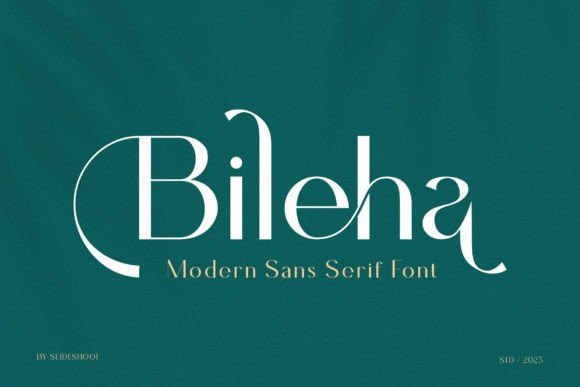
Introducing Bileha Font, the Ultimate Sans Serif for Stunning Designs:
Dive into the world of typography with Bileha Font, a finely crafted sans serif font that evokes balance, smoothness, and a timeless elegance. Each character in this font family is meticulously designed to convey sophistication, striking the perfect chord between classicism and contemporary aesthetics.
With its extensive range of applications, Bileha Font becomes an indispensable tool for your creative arsenal. Whether you're designing captivating invitation cards, creating a striking company logo, or crafting movie titles and names that linger in the memory, Bileha delivers versatility like no other. Its charm extends to business cards, book titles, brand names, and a myriad of other designs, leaving an indelible mark on any project it graces.
But Bileha Font is more than just a visually stunning font; it's an experience that captivates the senses. Designed to exude sophistication and elegance, this font transcends the ordinary, elevating your designs to new heights. Its stylish alternatives and ligatures add a touch of intrigue and individuality, making each creation truly unique.
Unleash the Full Power of PUA Encoding:
Bileha Font is a font of the future, encoded with the latest PUA technology. This empowers you to effortlessly access a treasure trove of glyphs and ligatures, unlocking a world of creative possibilities. Effortlessly add intricate details and flourishes to your designs, taking them from ordinary to extraordinary in an instant.
With PUA encoding, customization and personalization become a breeze. Create monograms, add embellishments to your text, or craft unique logos that reflect your brand's personality. The possibilities are as endless as your imagination.
Embark on a Typographic Journey with Bileha Font:
Bileha Font is more than just a font; it's an invitation to embark on a typographic journey where creativity knows no bounds. Its versatility transcends genres, making it the perfect companion for a diverse range of projects. From elegant wedding invitations to bold movie titles, from sleek business cards to eye-catching book covers, Bileha seamlessly adapts to your vision.
Don't settle for ordinary fonts that blend into the background. Choose Bileha Font, the sans serif that commands attention, captivates hearts, and leaves a lasting impression. Let your designs speak volumes with the eloquence and grace of Bileha. Experience the difference, elevate your work, and embark on a typographic adventure that will redefine your creative boundaries.